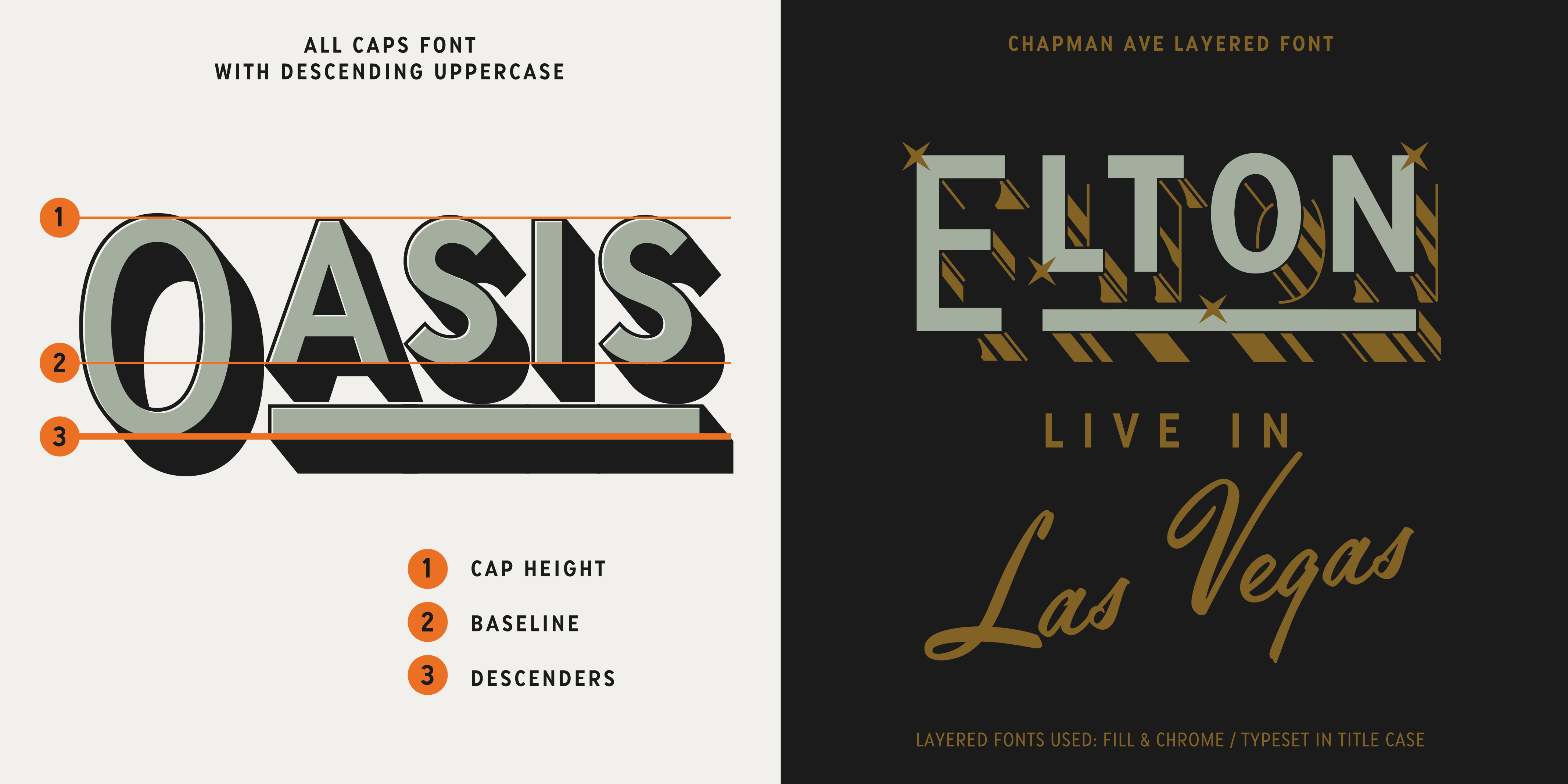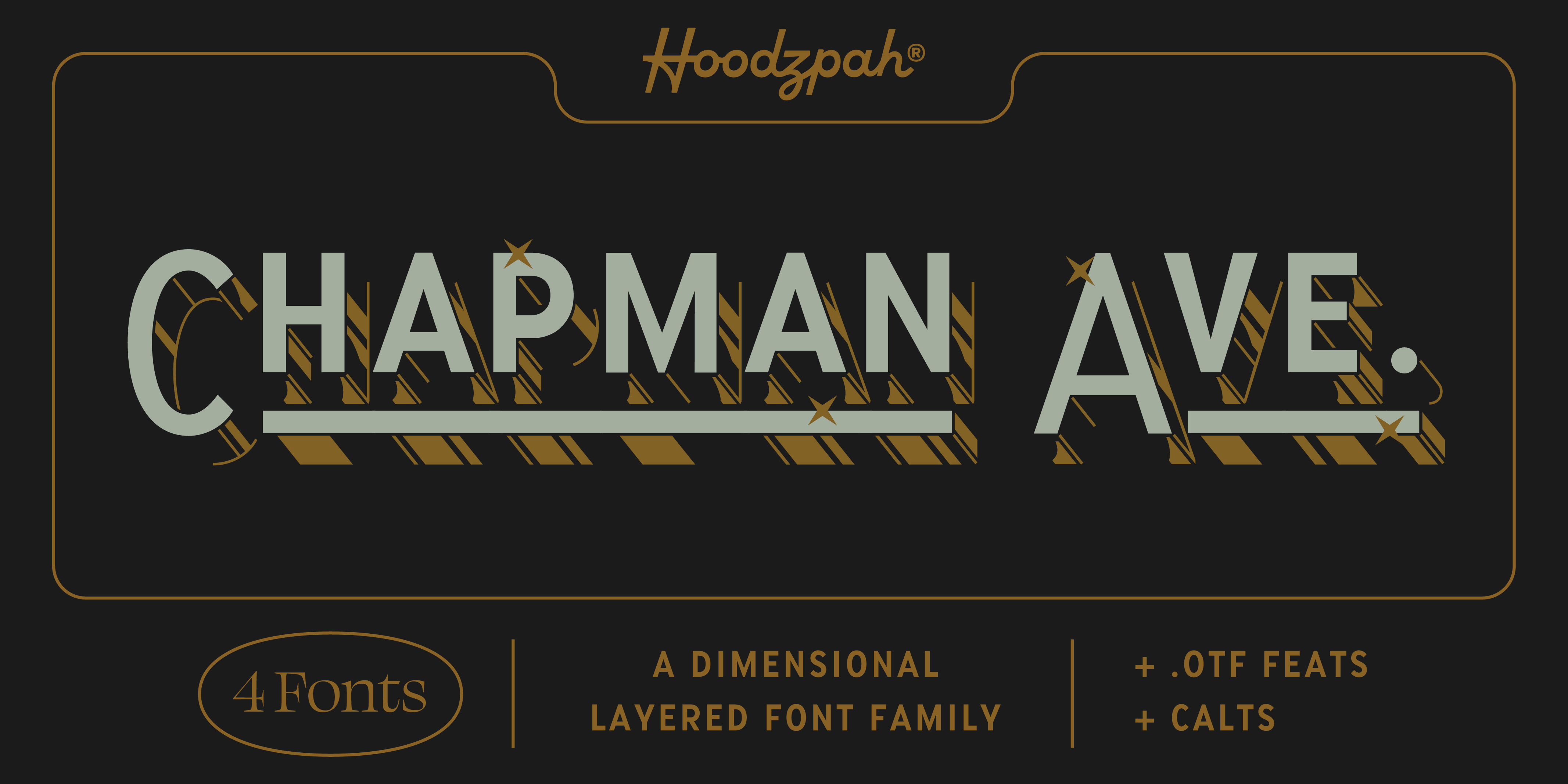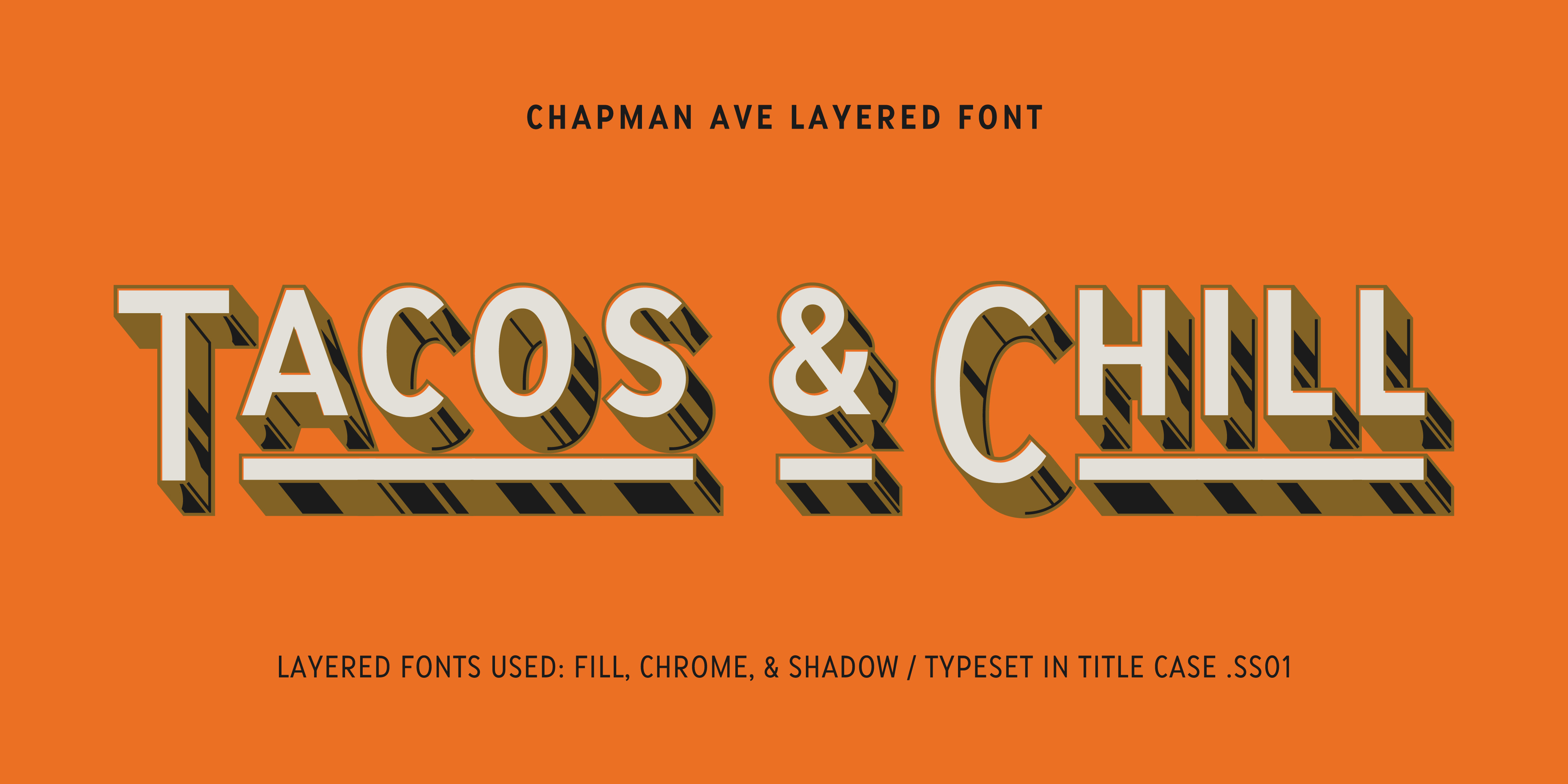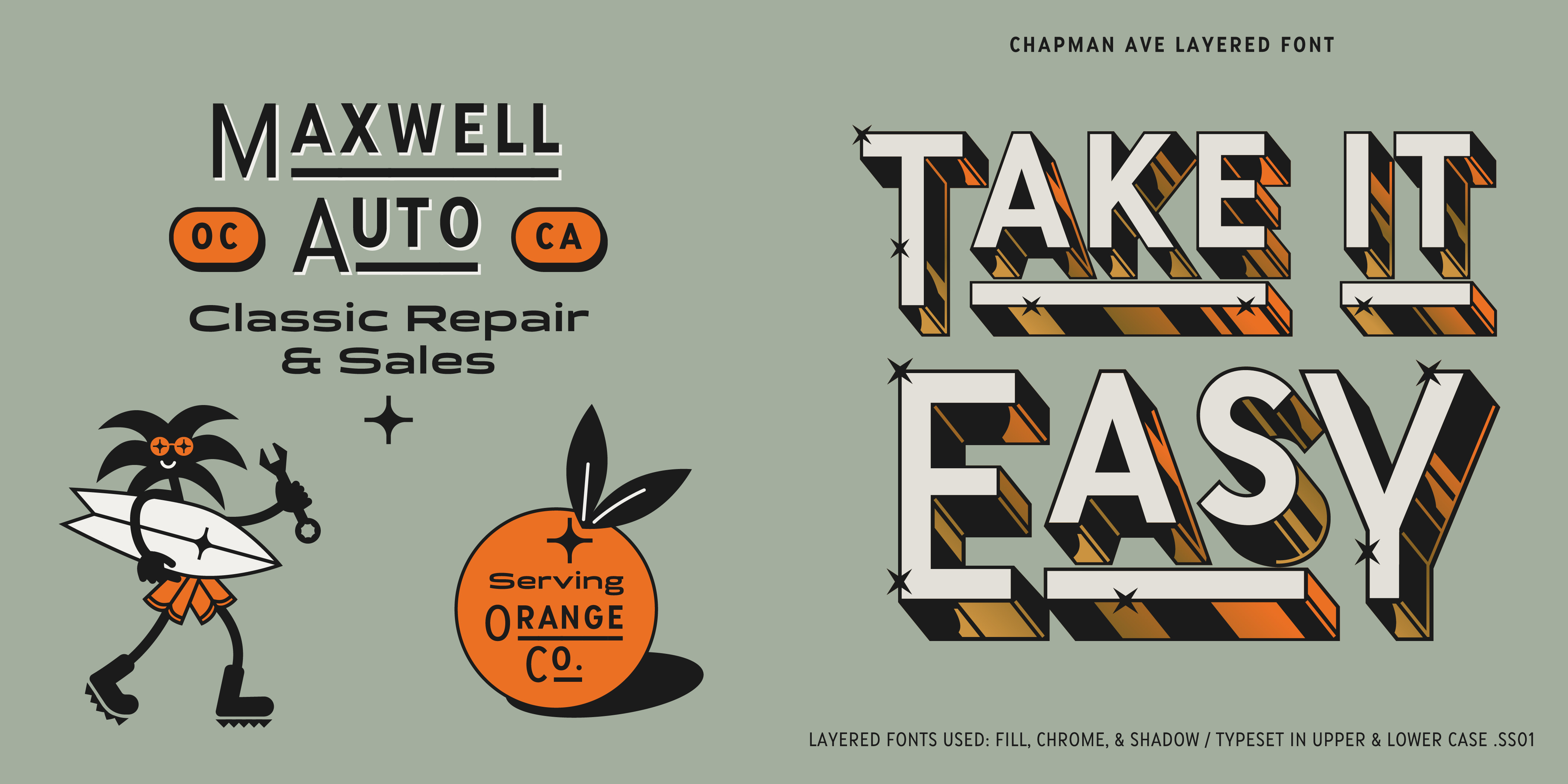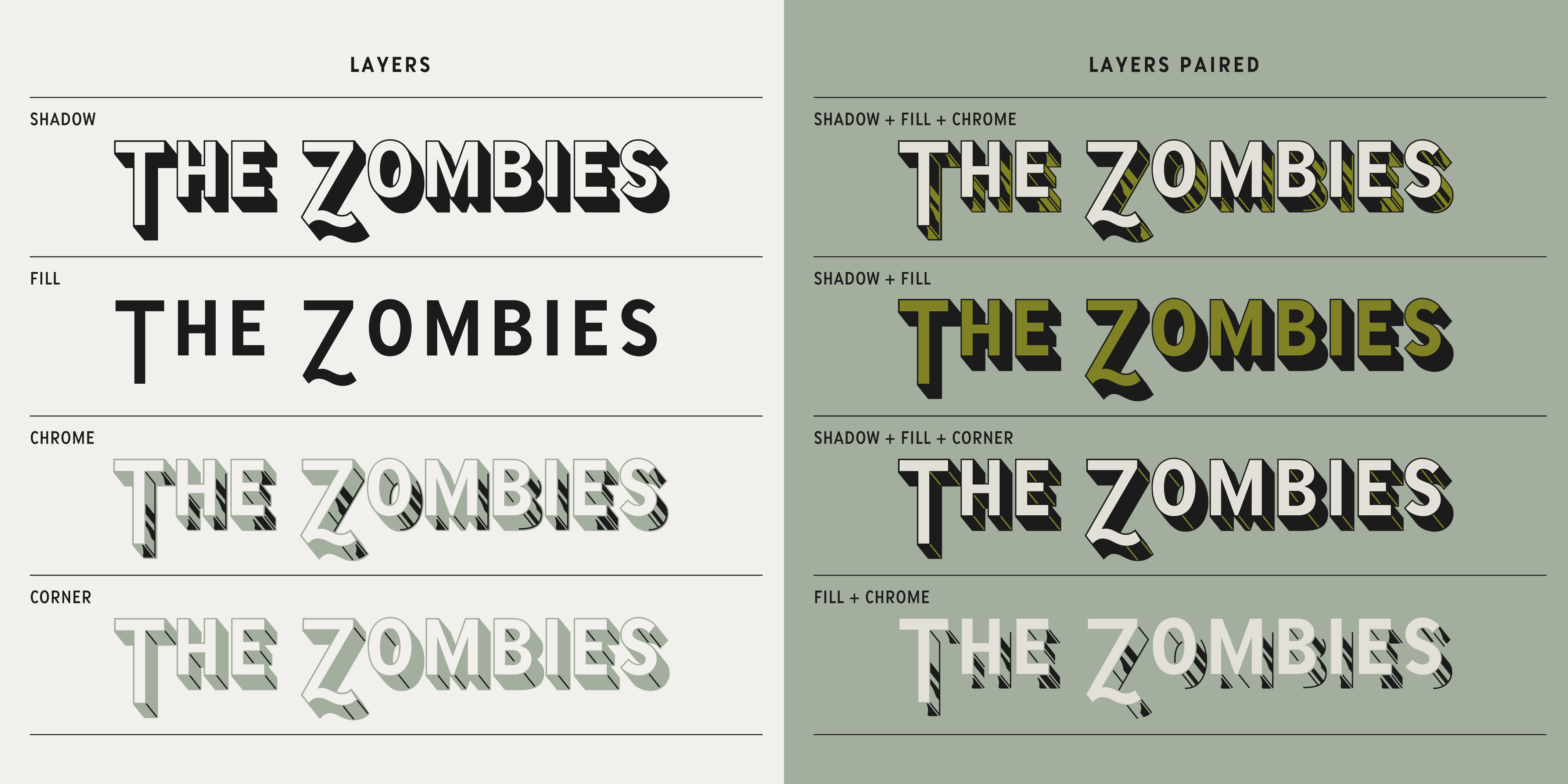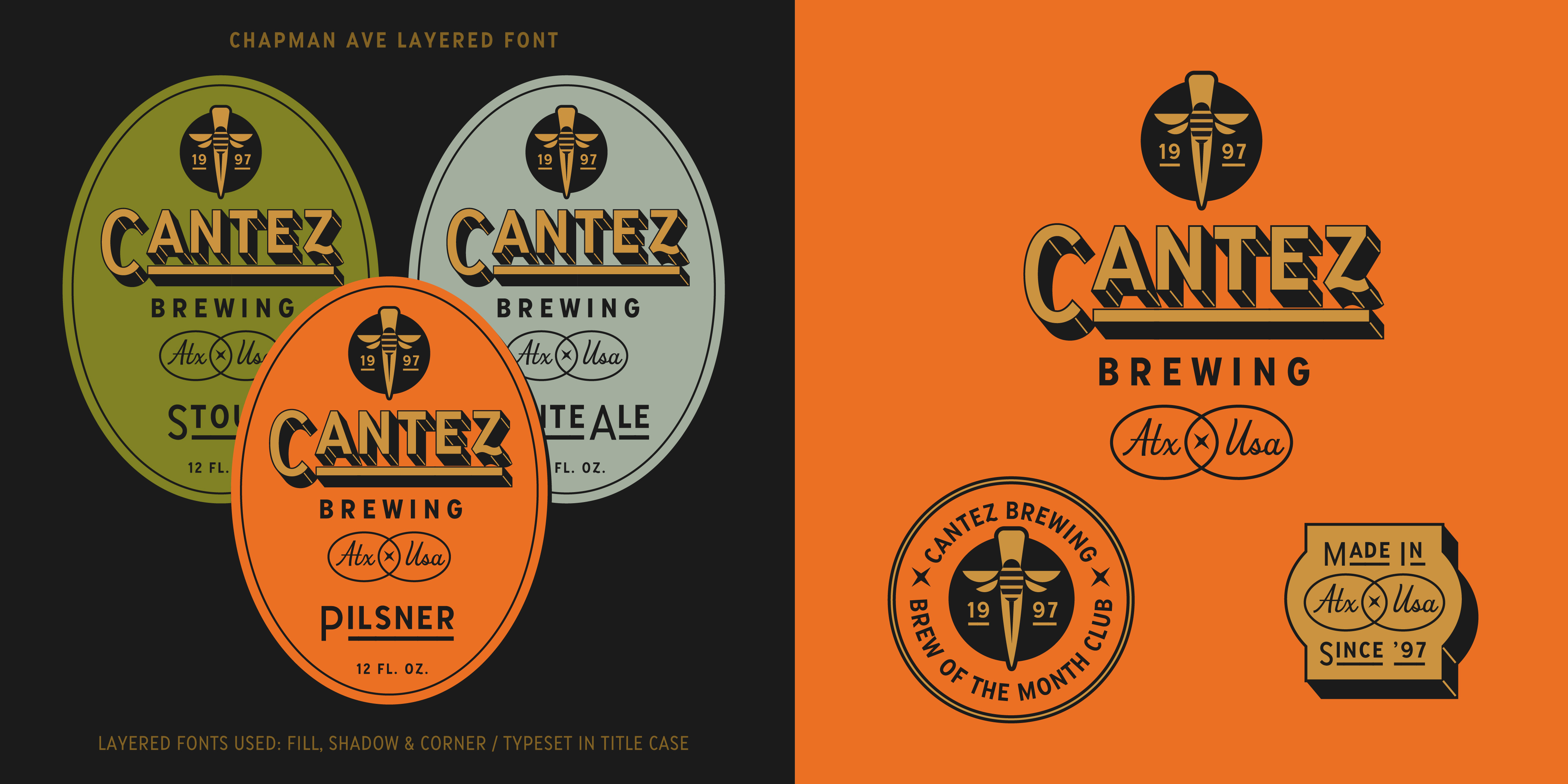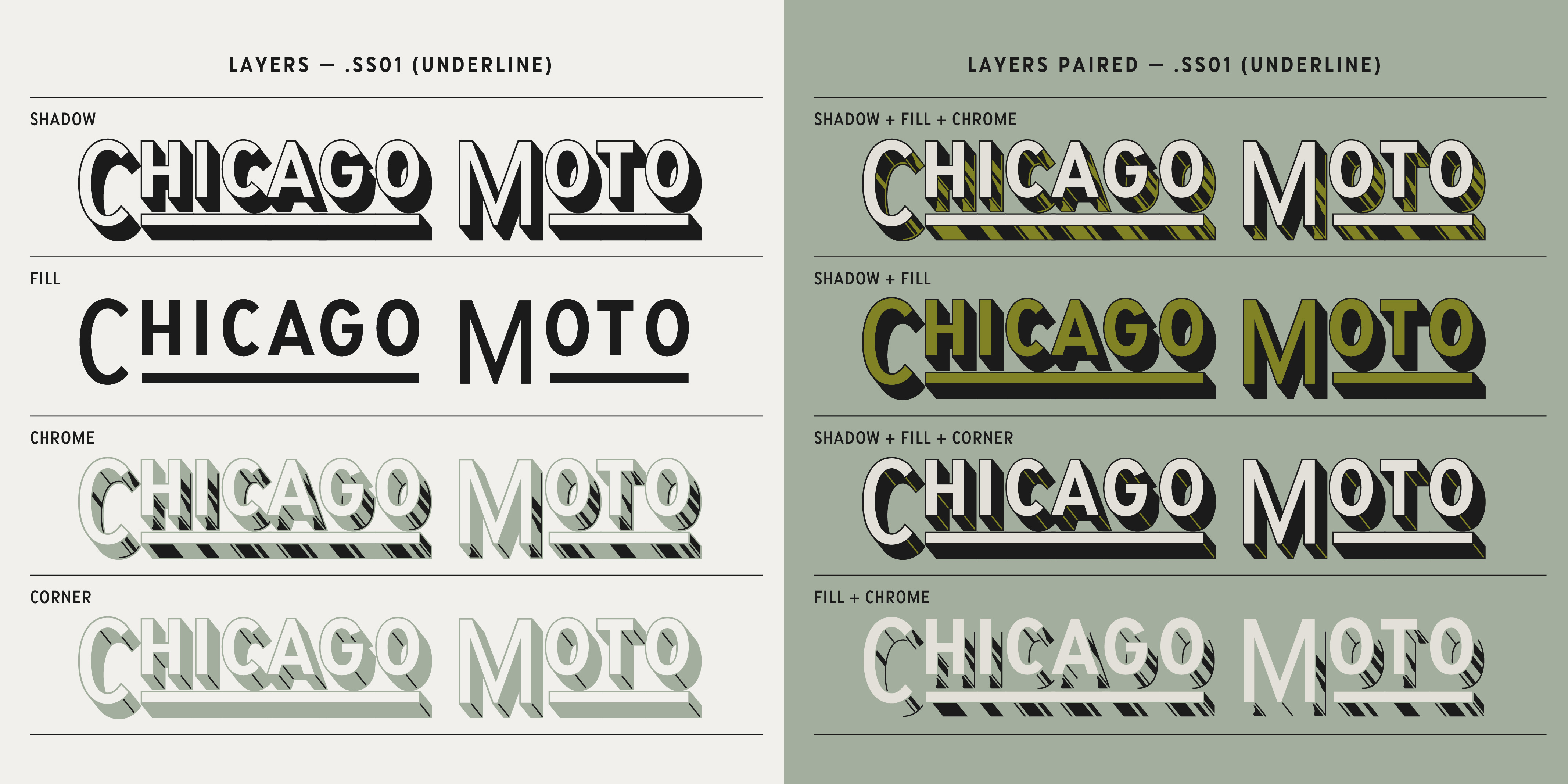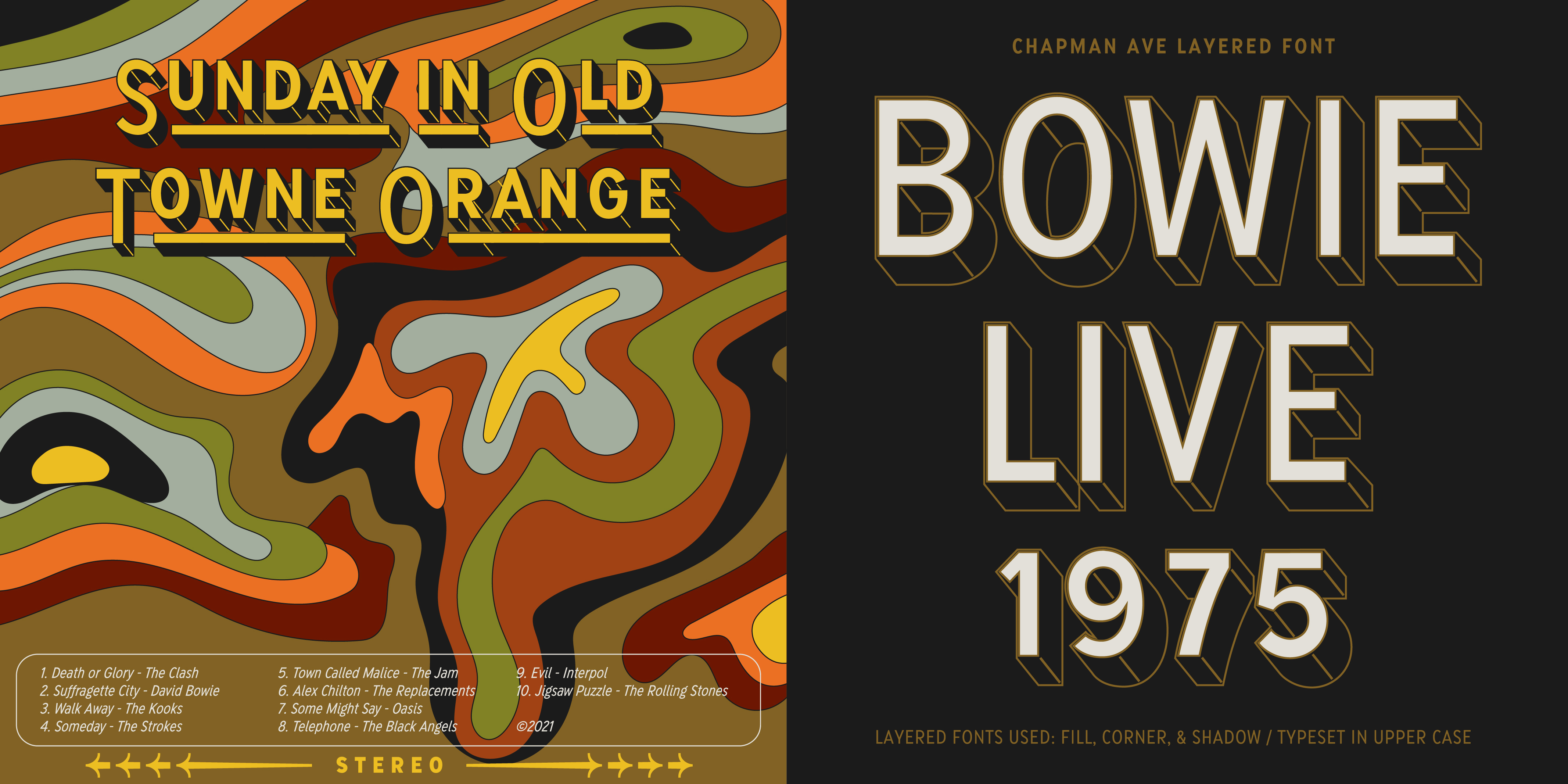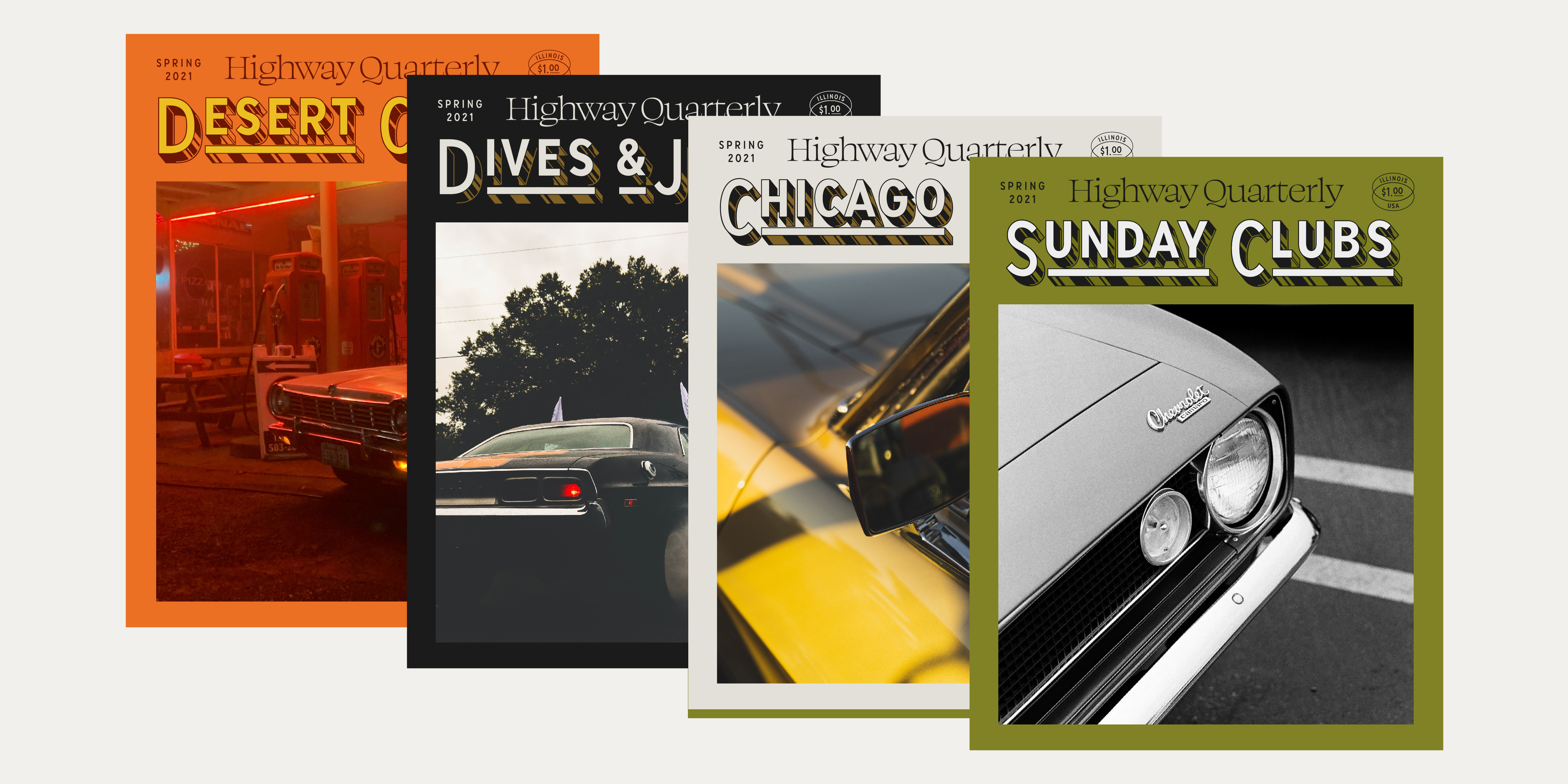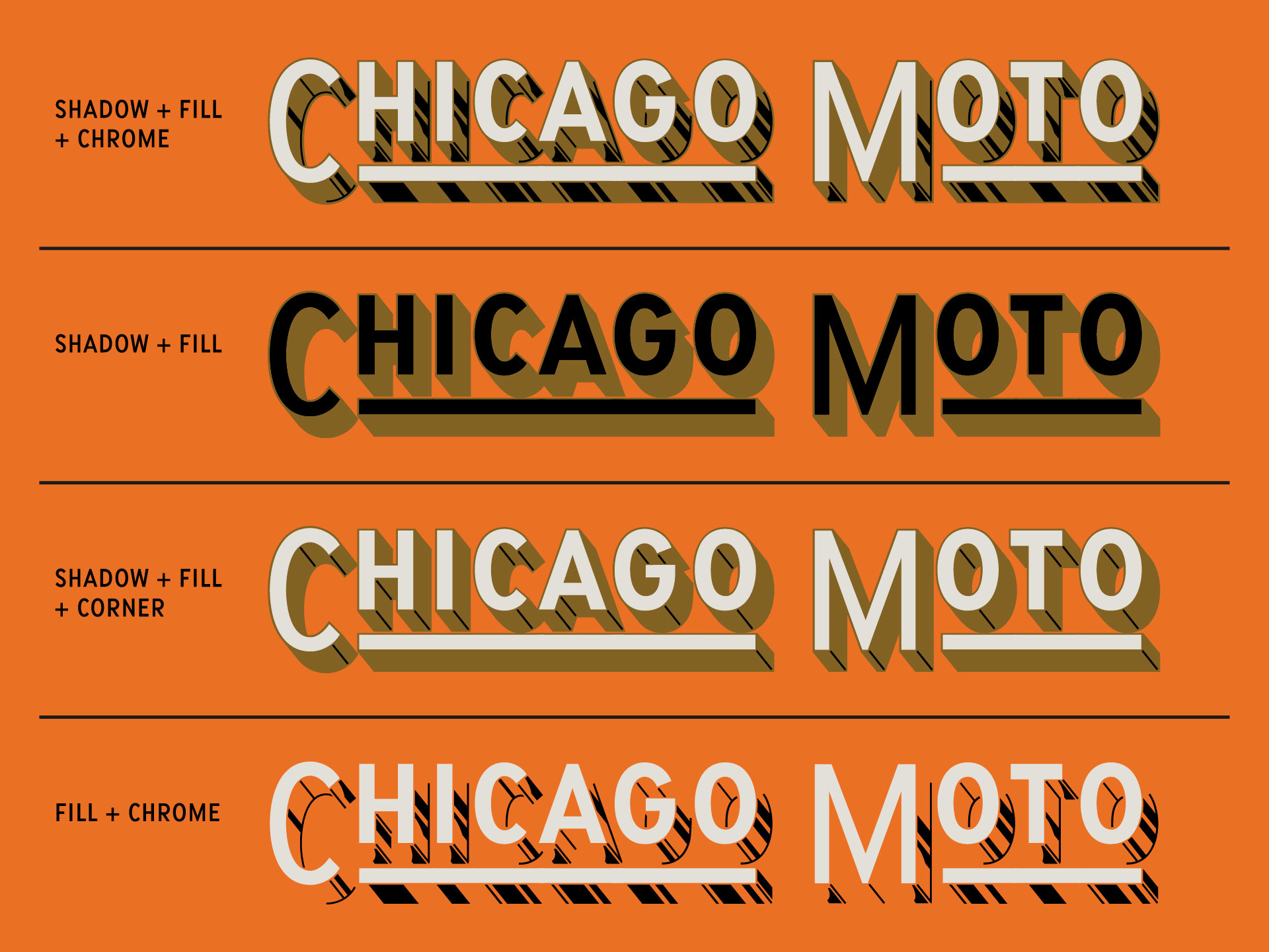
Chapman Ave
Chrome
Corner
Fill
Shadow
Chapman Ave layered font is a family of 4 dimensional fonts with more looks than the Met Gala. Mix and match styles, access Open Type stylistic sets for a whole new underlined look with contextual alternates, and play with different cases for endless design possibilities. This font was made as a chrome font all caps variation of our font Santa Ana Sans.